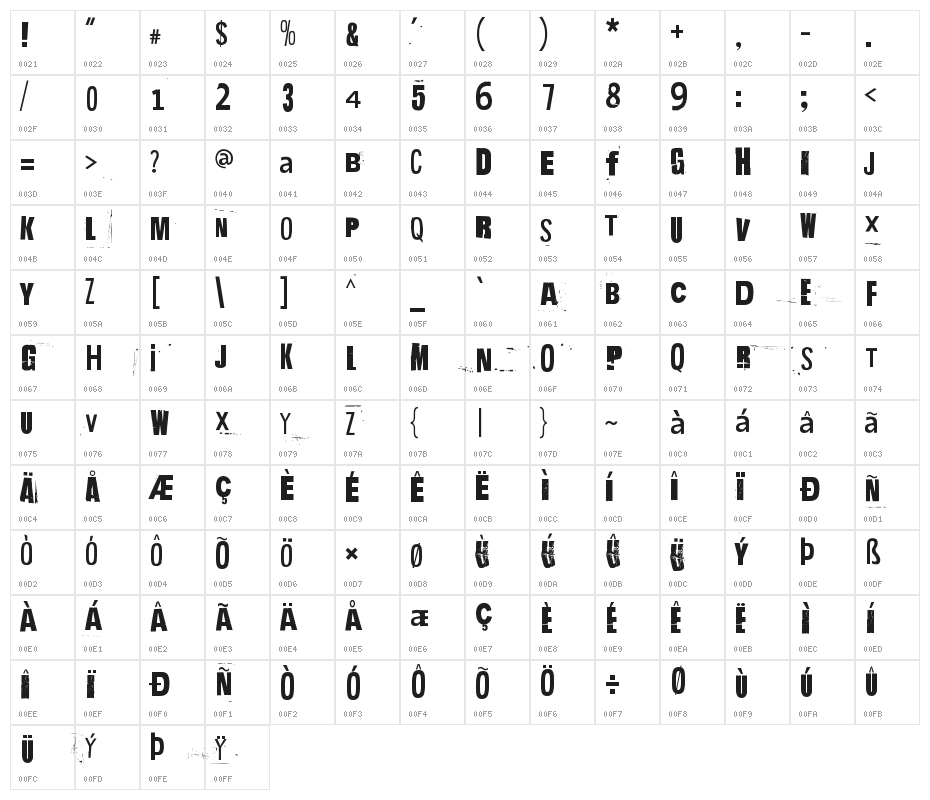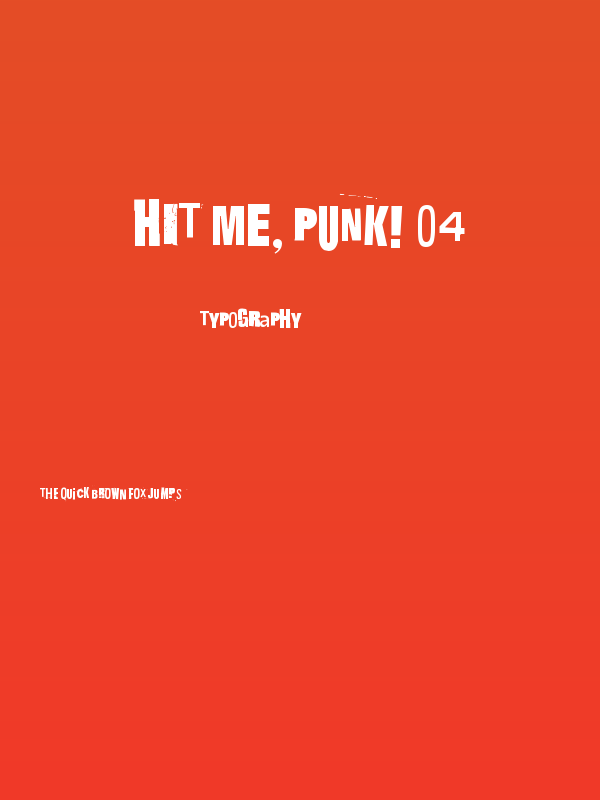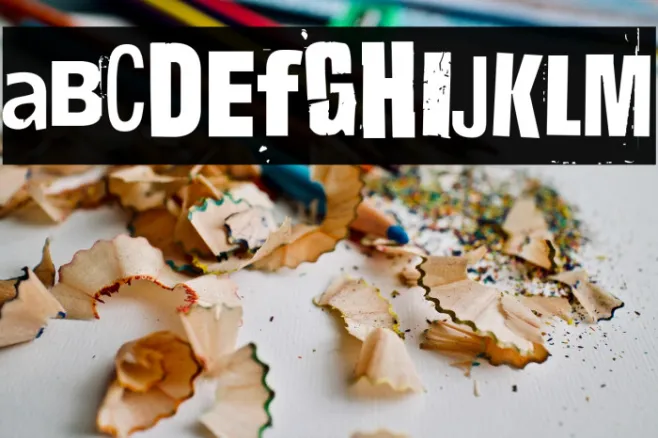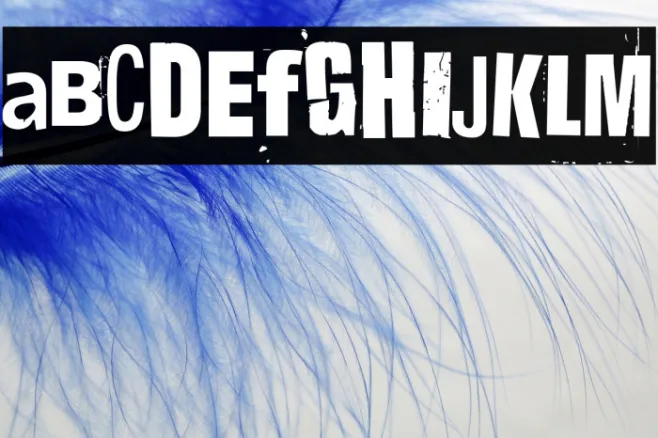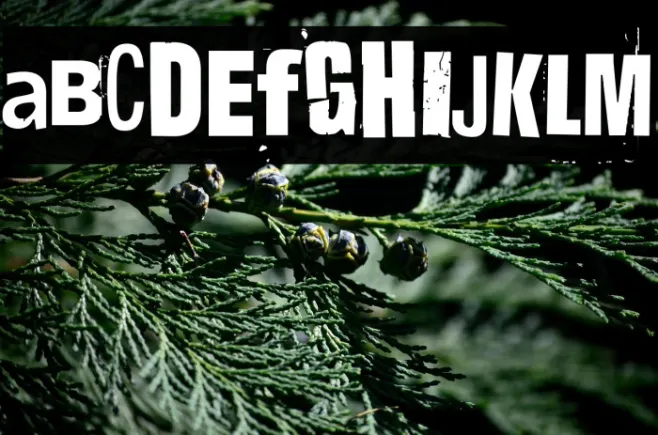
Hit me, punk! 04 Font
Hit me, punk! 04 Description
This font features a bold, distressed style with a punk-inspired aesthetic. The characters are uppercase and lowercase, with a rough, grungy texture that gives the impression of being worn or weathered. The letters are unevenly cut, adding to the rebellious and edgy feel. The numbers and special characters follow the same distressed pattern, making the font suitable for designs that require a raw, urban look. The overall appearance is striking and attention-grabbing, perfect for projects that aim to convey a sense of boldness and nonconformity.
| Overall Style | Punk, Grunge, Urban |
| Use Case | Headlines, Posters, Branding |
| Proposed Projects | Ideal for music album covers, posters, streetwear branding, and any project needing an edgy, rebellious vibe. |